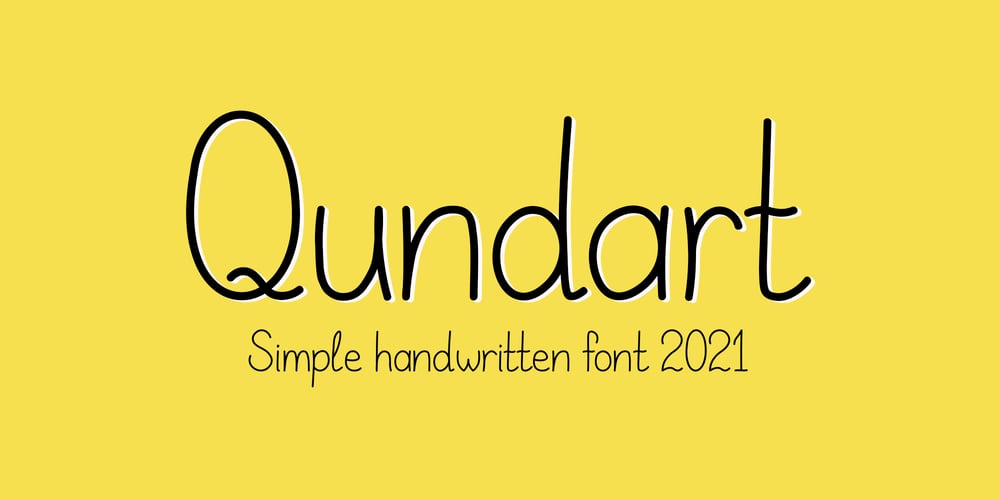
Qundart Font Family was designed by Tetiana Savchenko and published by Tanya Savchenko. Qundart contains 1 styles and family package options. Qundart – simple handwritten font. Can be used in postcards, greetings, promotional banners. The font is cute and lightweight.Composition: Latin and Cyrillic (full set of symbols of the Ukrainian alphabet).